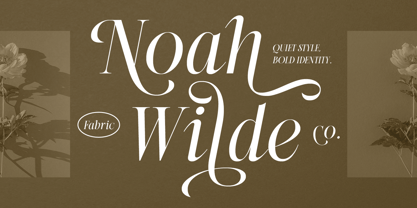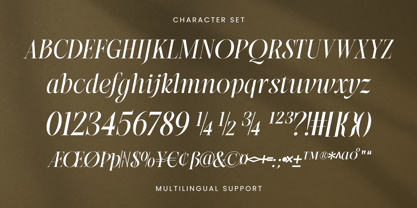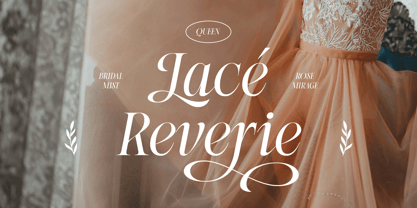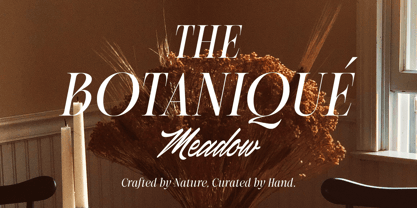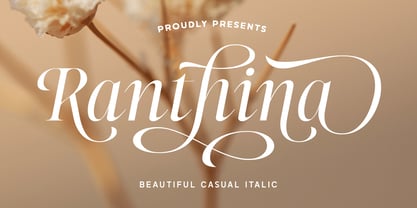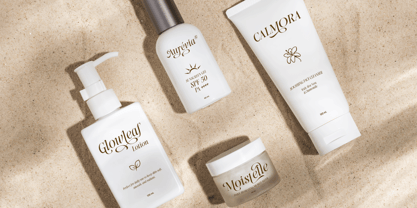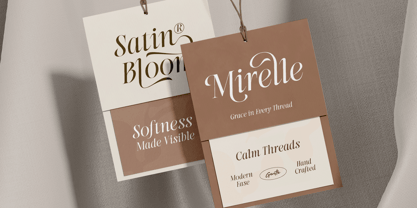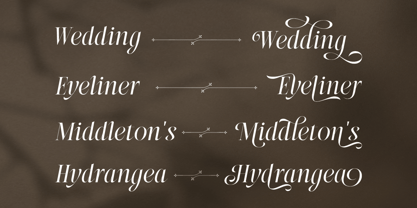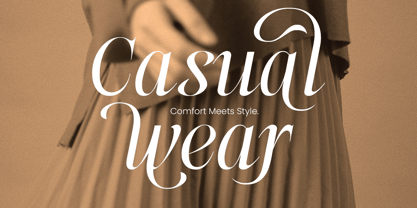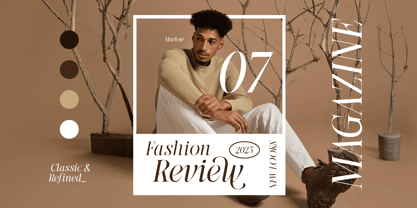
Ranthina
The Ranthina Font Family was designed by Ahmad Ramzi Fahruddin and published by DGtype. Ranthina contains 1 styles. More about this family
Introducing Ranthina – A Romantic Italic Font with Flourishes and Elegance
Ranthina is a refined and romantic italic typeface, crafted with graceful flourishes. Designed with high-contrast strokes, it brings a perfect blend of drama and softness — ideal for projects that need an elegant, luxurious touch.
With 300+ special characters, Ranthina offers extensive multilingual support and creative flexibility, making it a perfect choice for logos, branding, editorial designs, book covers, greeting cards, social media graphics, wedding invitations, and more.
Let your designs speak with emotion and style — let them speak with Ranthina.
Fonts featured :
• Uppercase
• Lowercase
• Numbers & symbols
• Punctuation
• Stylistic alternates
• Stylistic set 01-47
• Mulitlingual support